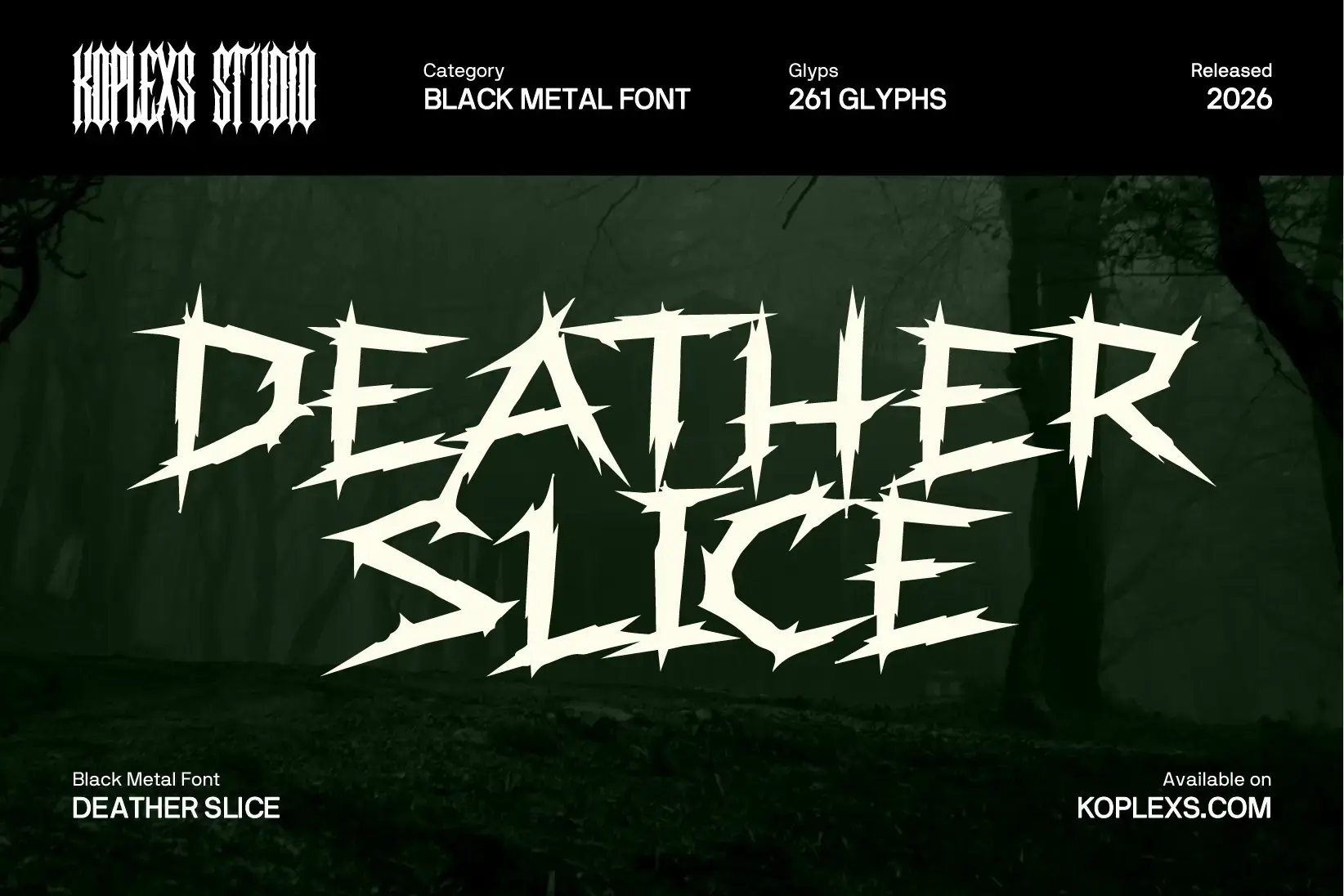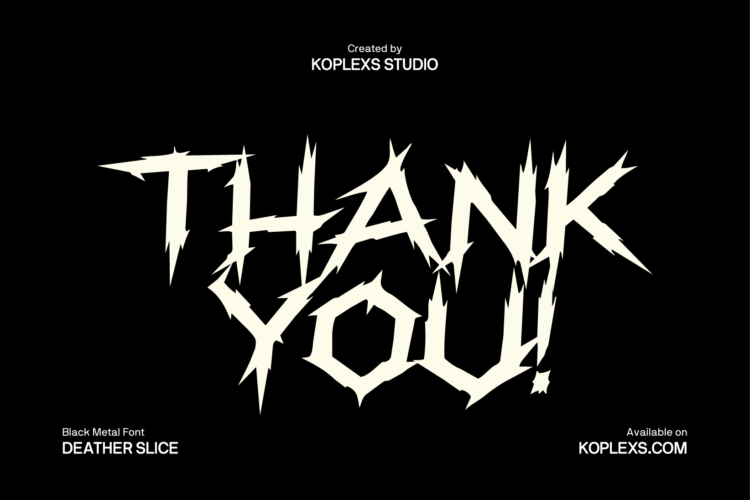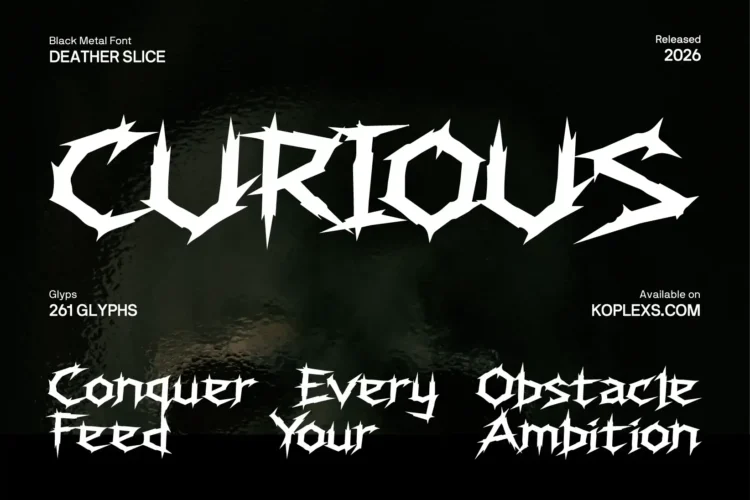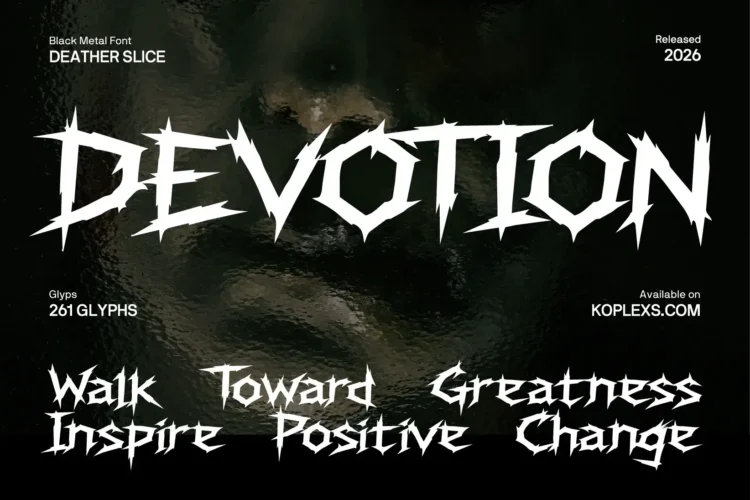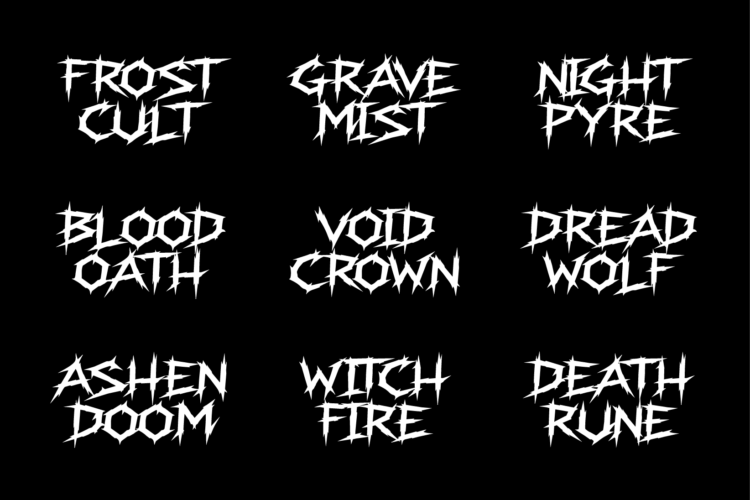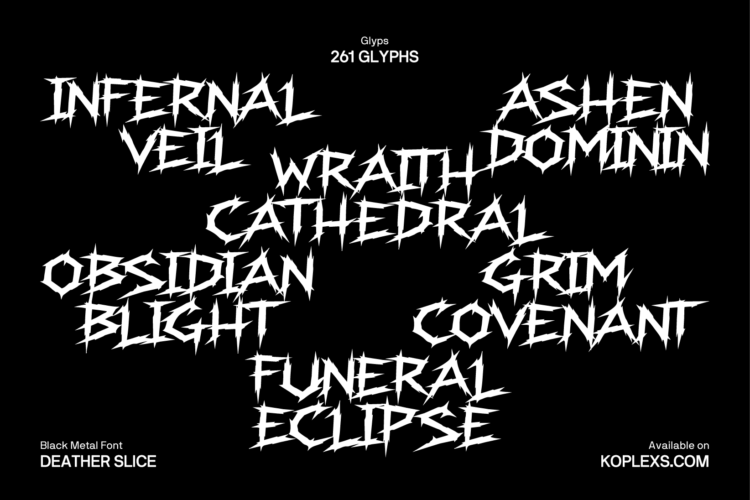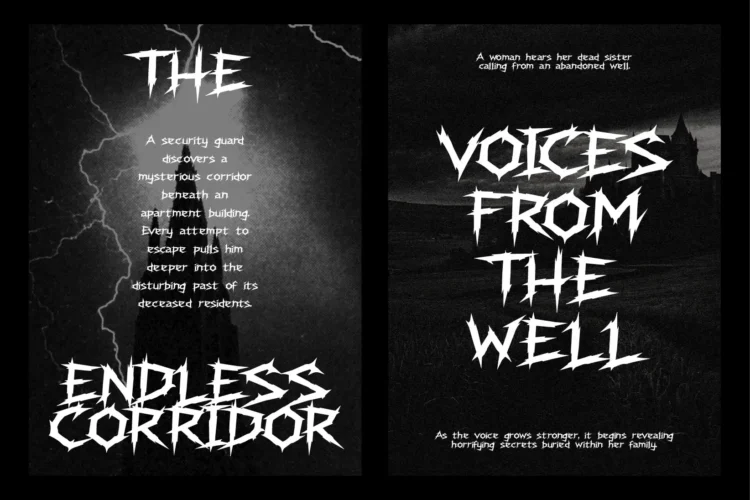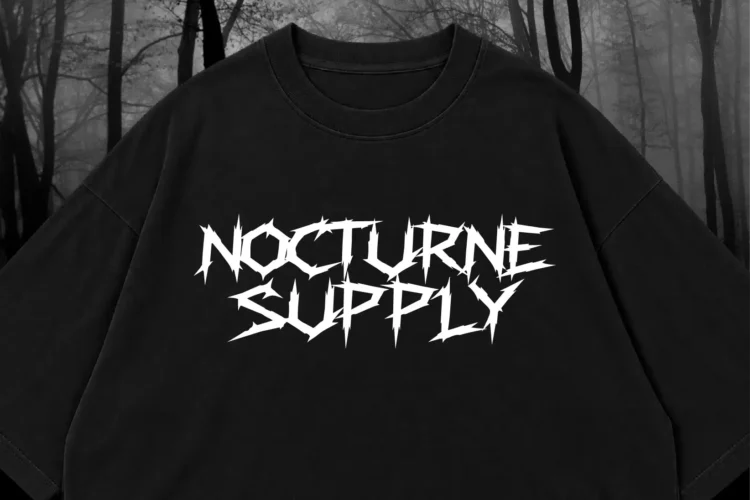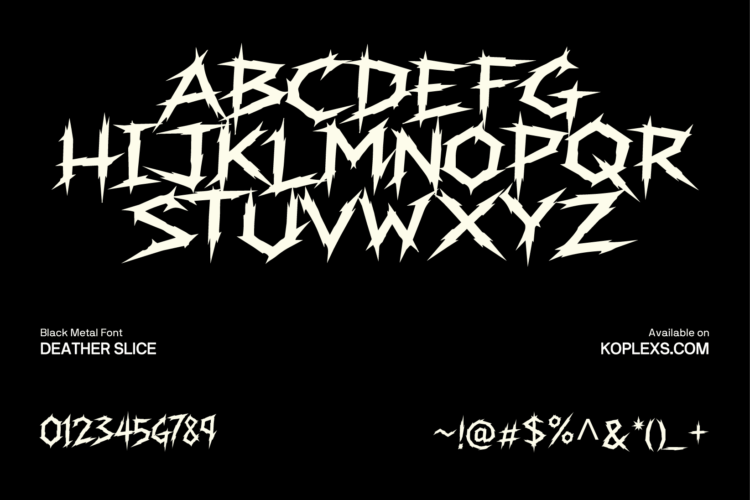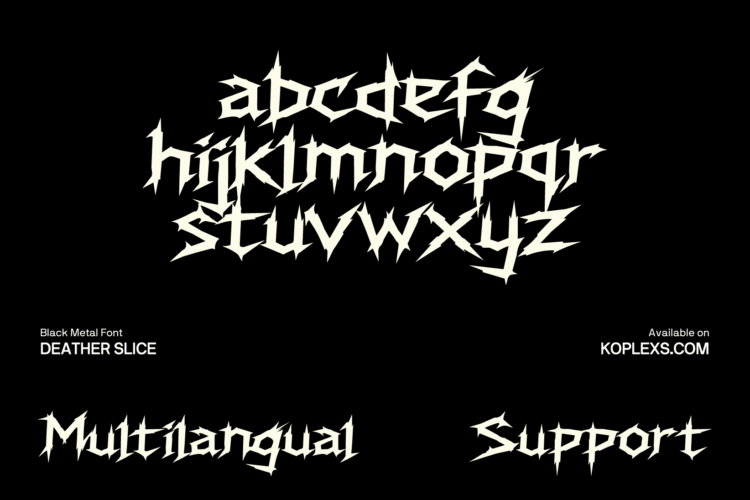
Deather Slice Font
Deather Slice Font | Black Metal Font for Band Logos
Deather Slice Font is a black metal display typeface by Koplexs Studio that gives your words a sharp, aggressive presence. Jagged edges, blade-like points, and angular letterforms create a raw look suited to heavy music, horror artwork, and dark visual identities.
Its distinctive silhouette makes short names and titles feel intense. From a stark band logo to a haunting book cover, Deather Slice brings character through the lettering itself.
Cosaroz Font Perfect For :
• Black metal and heavy metal band logos.
• Album covers and single artwork.
• Concert posters and music festival headlines.
• Horror book covers and film titles.
• Alternative streetwear, T-shirts, and band merchandise.
• Dark fantasy titles and promotional graphics.
Use it at larger sizes to let the pointed details stand out. Short text, generous spacing, and strong contrast give its angular shapes room to work.
Give your next cover, logo, or merchandise design a sharper edge with Deather Slice Font.
Deather Slice Font is a sharp black metal display font with 261 glyphs and multilingual support. Its jagged lettering brings a dark, aggressive edge to band logos, album covers, horror posters, and alternative apparel.